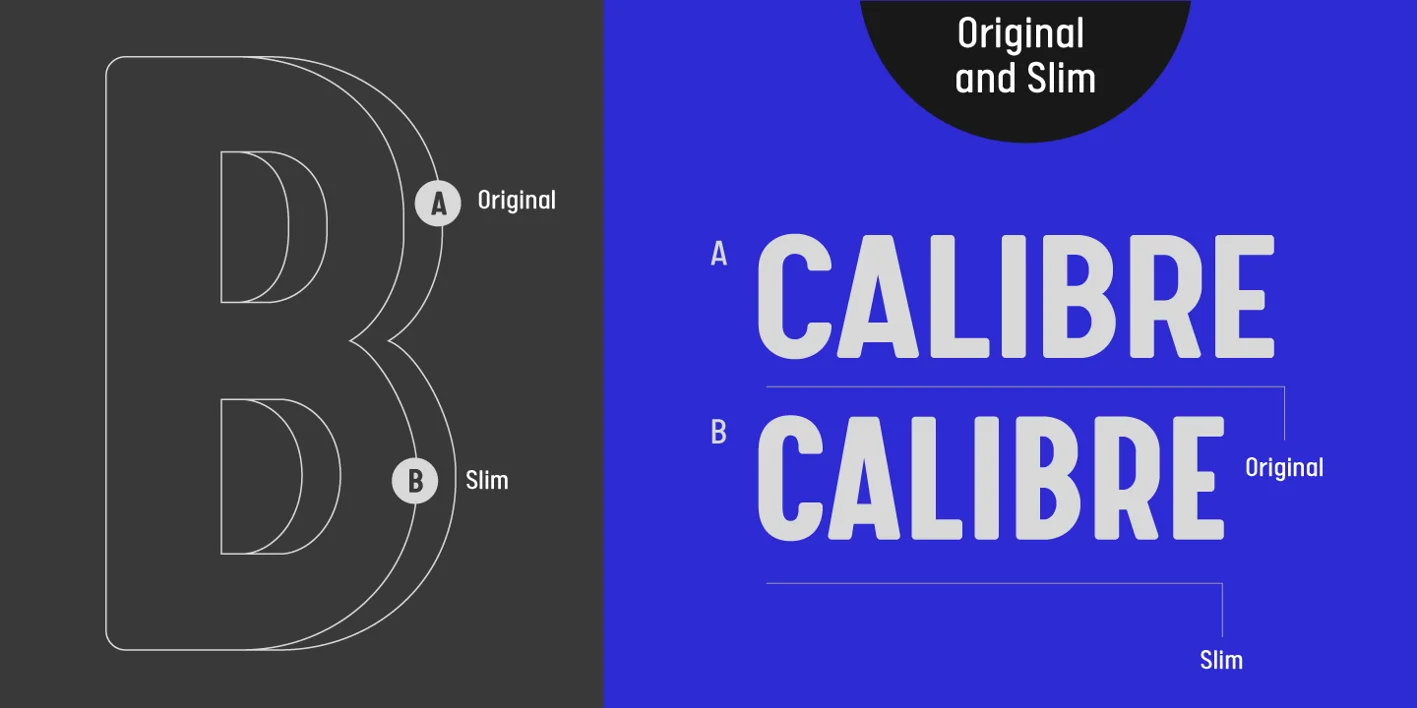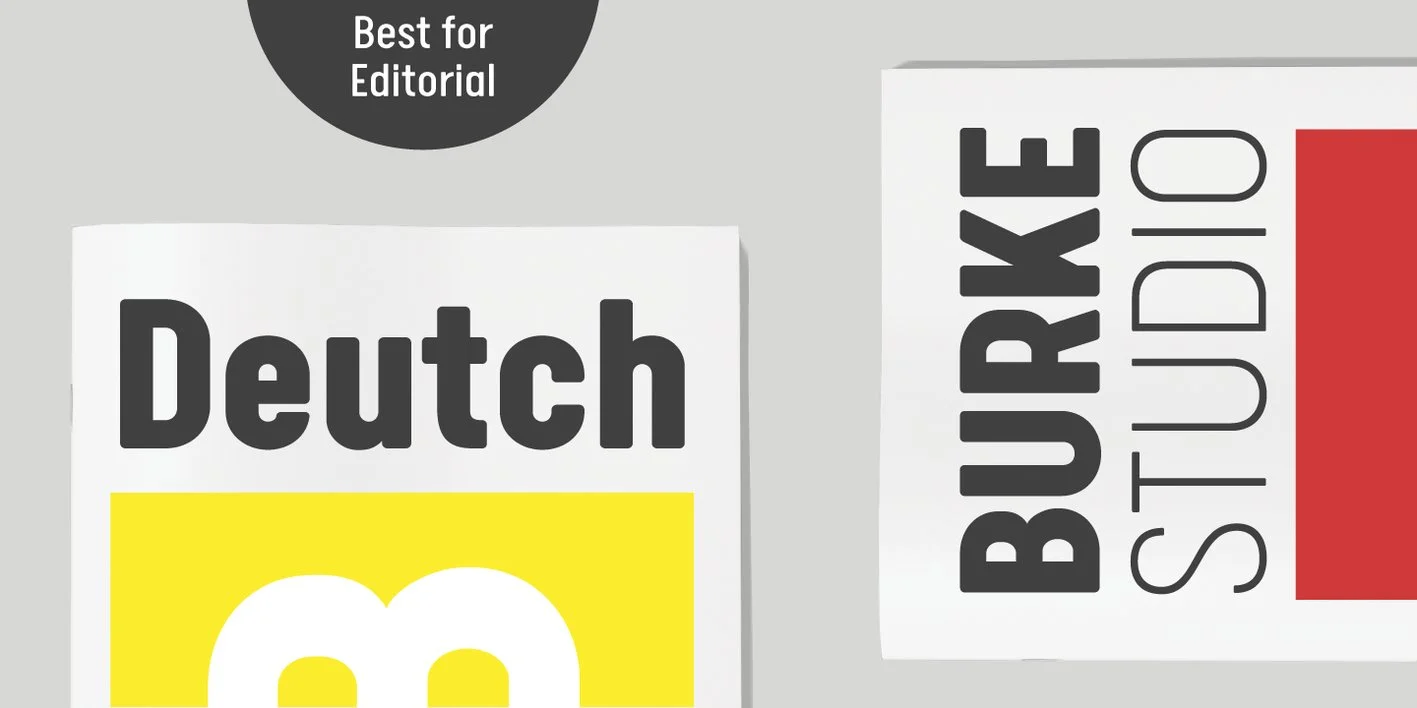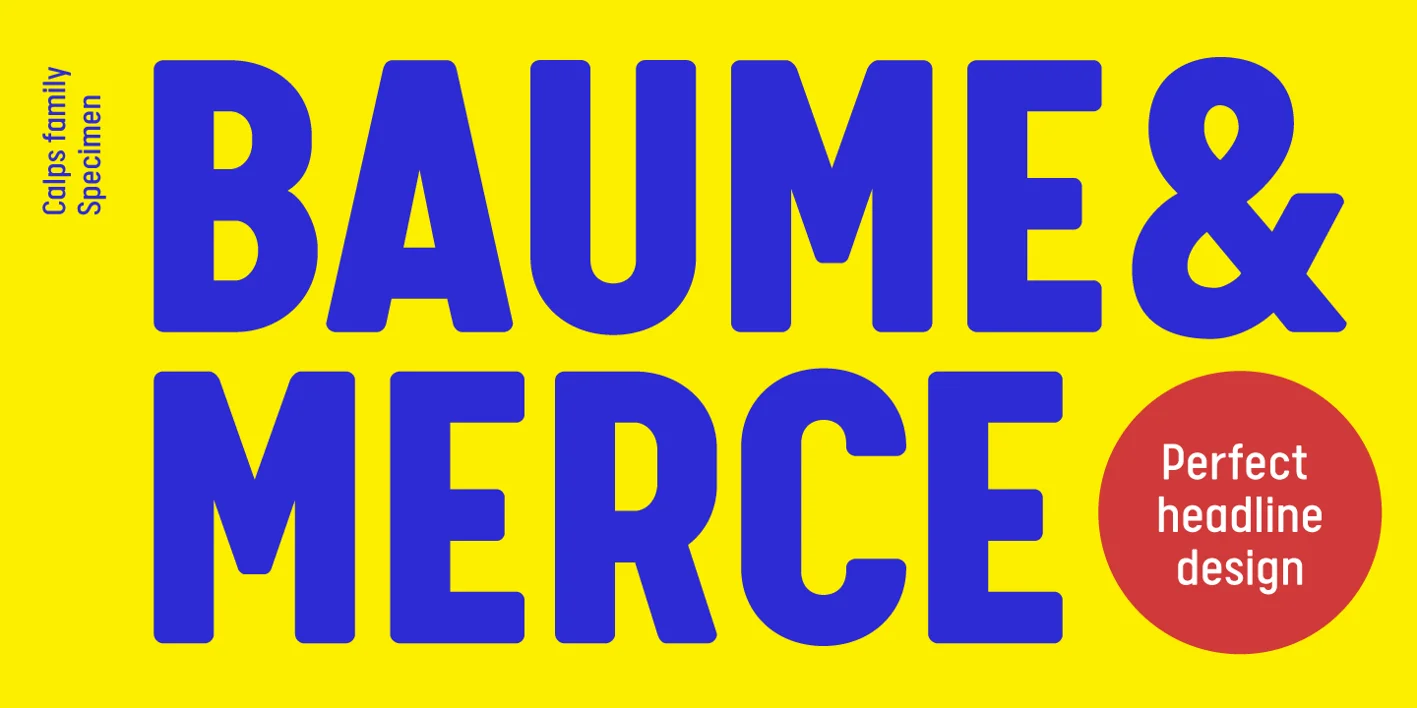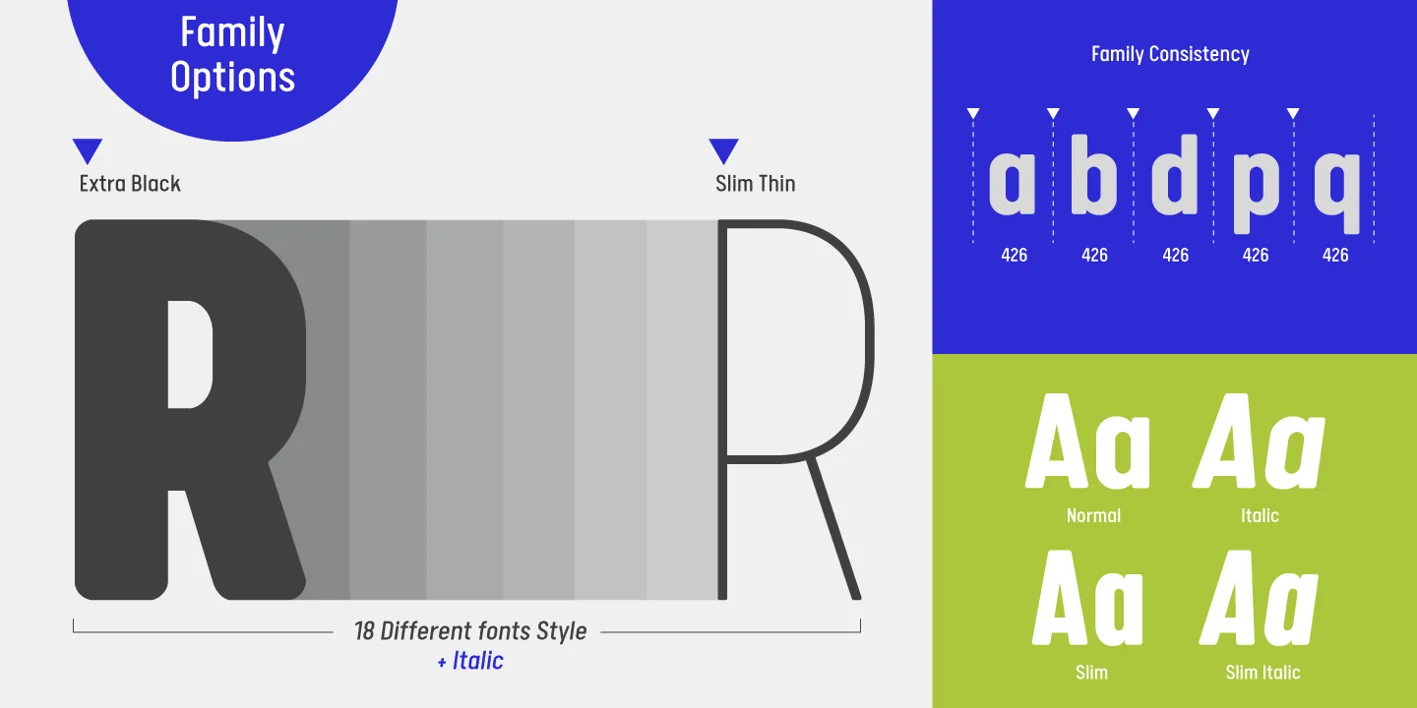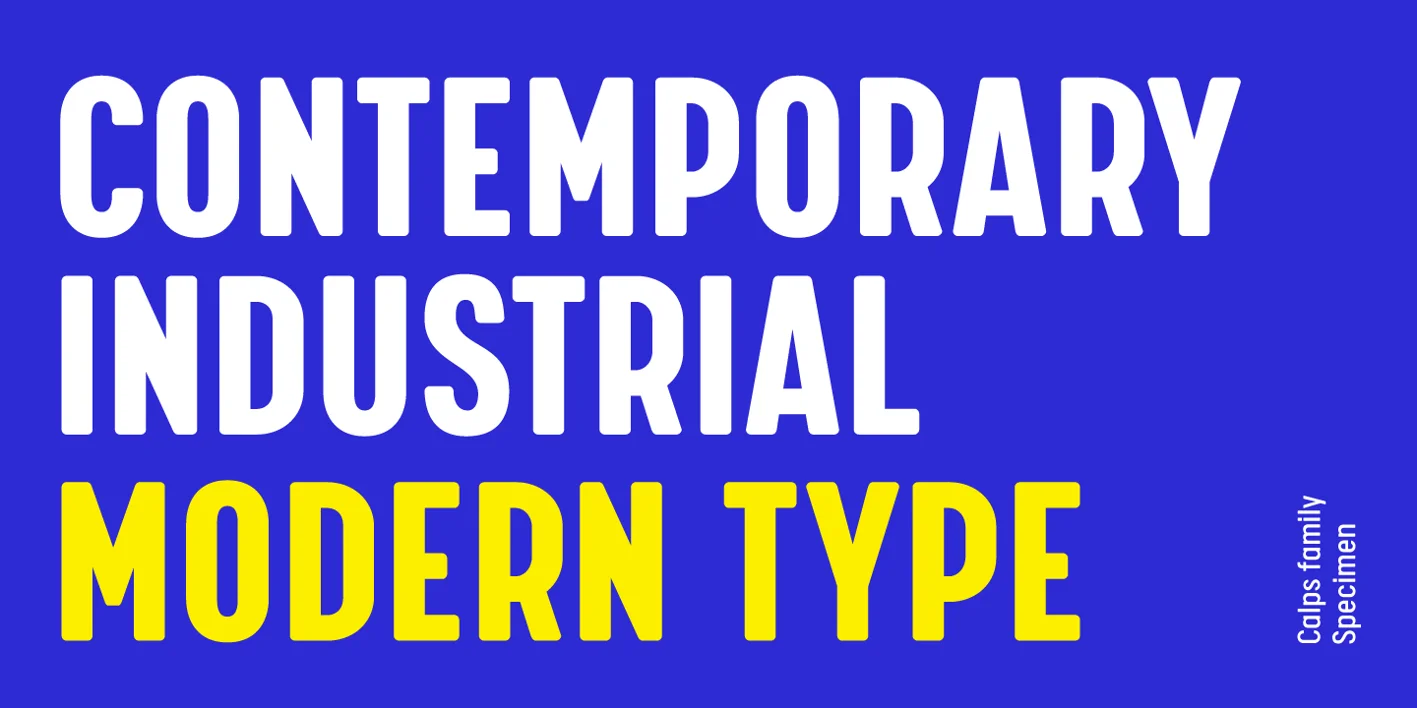
Calps Font
There is a particular satisfaction in finding a typeface that delivers refined proportions and careful stroke modulation without compromise. Calps consistently provides it. The typeface brings a versatile sensibility to a broad range of creative disciplines, with visual harmony and precise spacing that holds up whether the work is print-first or screen-first.
In practice, Calps proves particularly effective for social media graphics, web design, annual reports, signage systems, product labels. Designers reaching for it find that the type decisions feel resolved rather than laboured — a useful quality when client timelines are tight.
The range of applications extends to brand identity systems, poster creation, advertising campaigns, packaging design. That breadth is deliberate: the proportions and spacing were stress-tested across a wide range of mock briefs before the typeface was finalised.
Calps sits comfortably alongside both classic and contemporary typefaces in multi-font hierarchies. It takes direction rather than competing for attention — a quality that experienced designers know is harder to find than it appears.
Motion designers building title sequences and lower thirds find Calps a reliable choice for projects that demand both personality and restraint. The design avoids the self-conscious quirkiness that dates quickly, settling instead for considered distinctiveness that holds up over time.